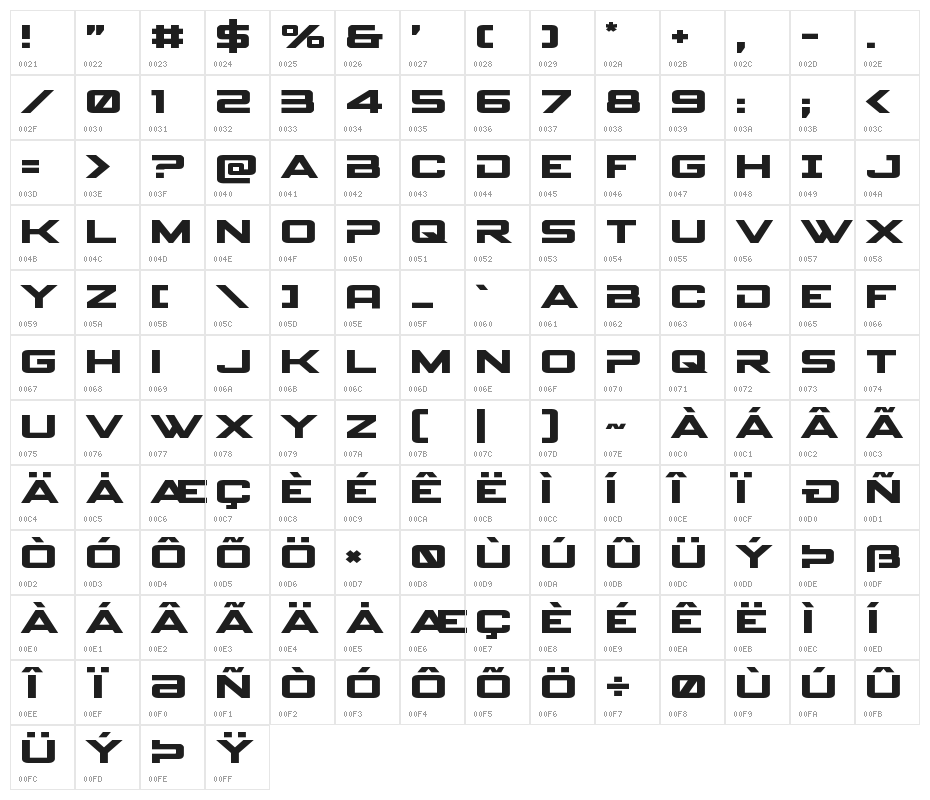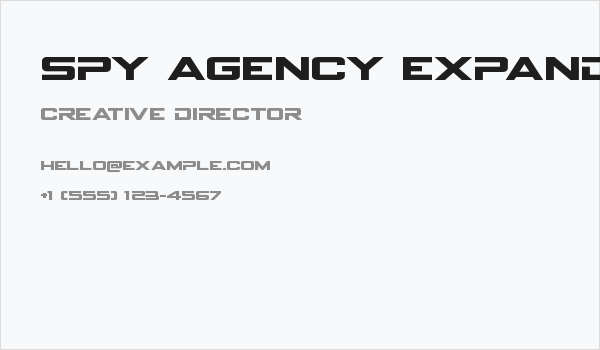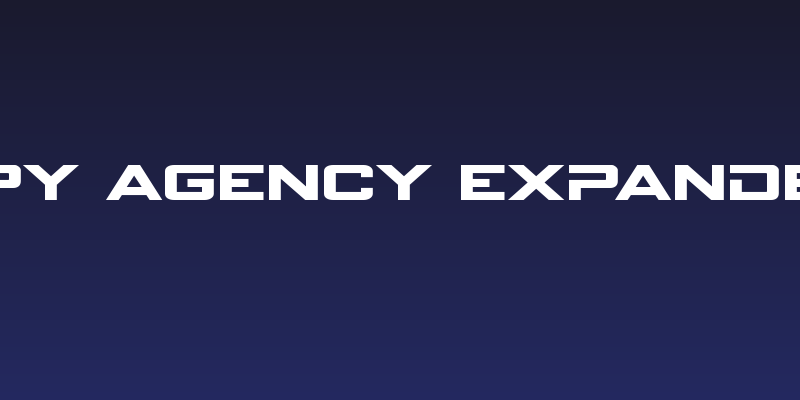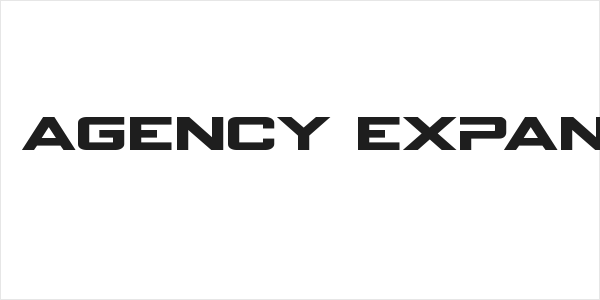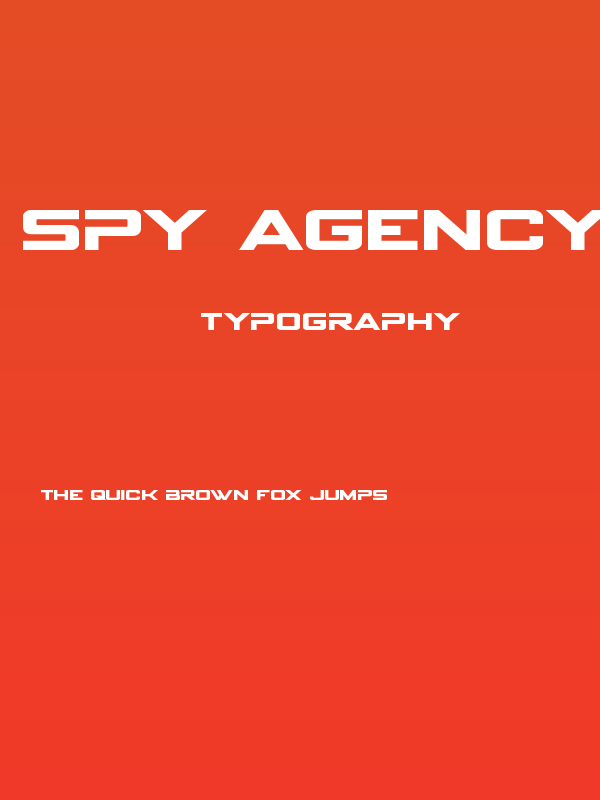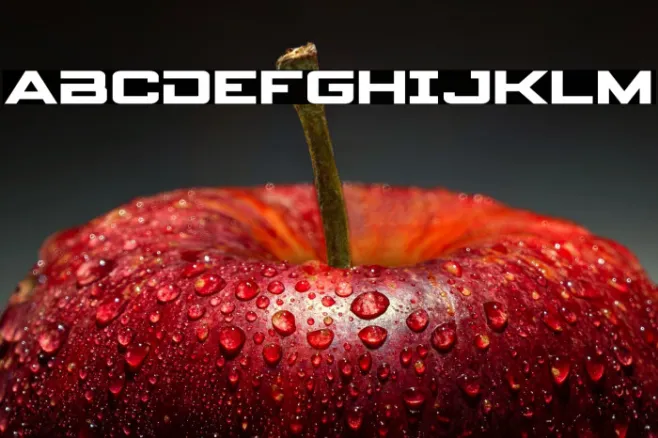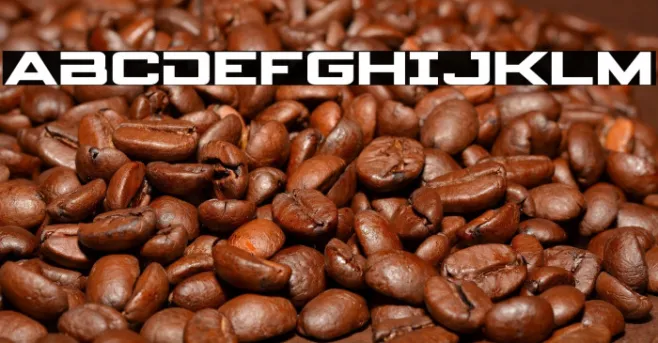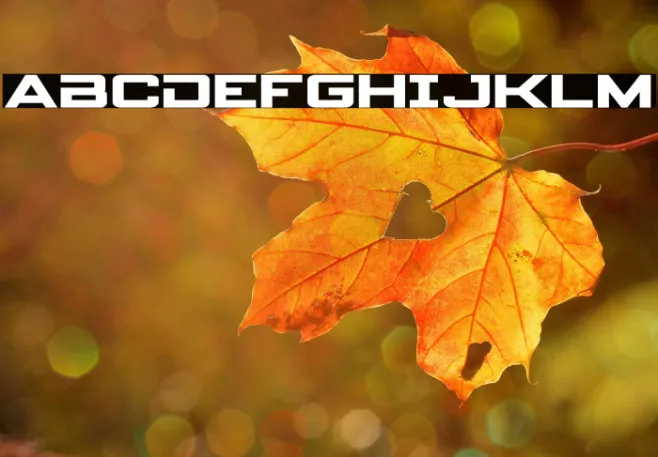
Spy Agency Expanded Font
Spy Agency Expanded Description
This font features a bold, geometric design with a distinctly modern and futuristic appearance. The characters are wide and angular, with sharp edges and a consistent stroke width that gives it a strong, impactful presence. The uppercase and lowercase letters maintain a uniform style, enhancing readability while retaining a unique aesthetic. The numerals and special characters are designed to match the boldness and angularity of the alphabet, ensuring a cohesive look across all text. This font is ideal for projects that require a modern, tech-inspired feel.
| Proposed Projects | Ideal for technology branding, sci-fi themed designs, video game interfaces, and modern advertising. |